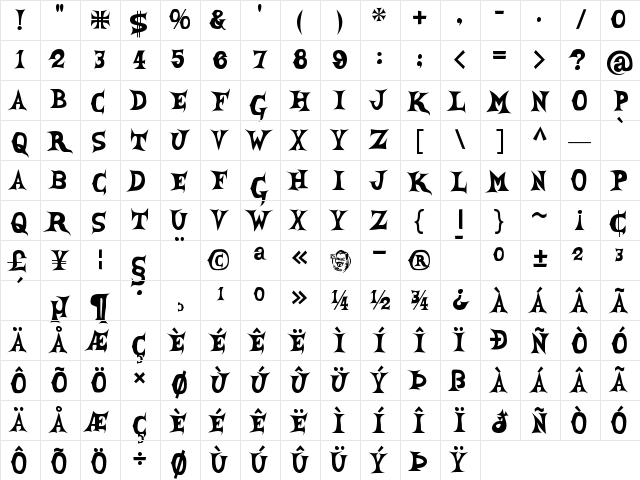
SheCreature Regular
Design Context for SheCreature
SheCreature is a composed and adaptable typeface that performs quietly and consistently across a wide range of design contexts.